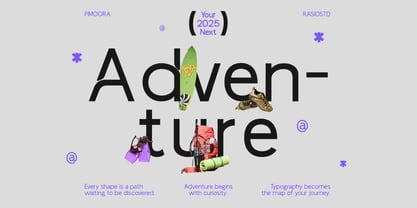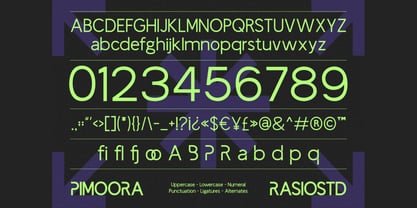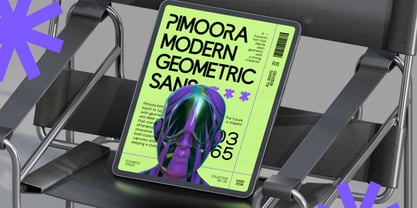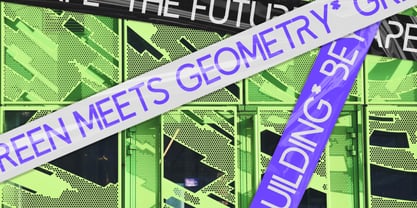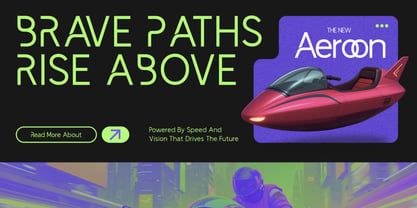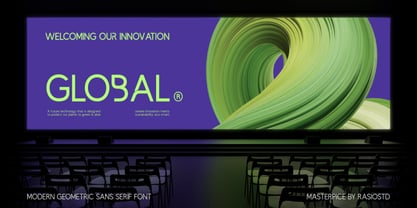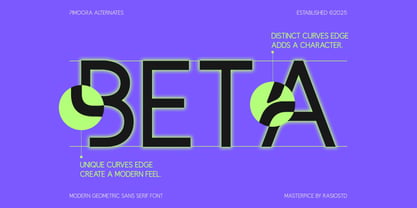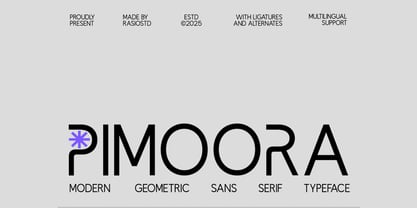
Pimoora
by Rasio Studio
Pimoora is a modern geometric sans serif typeface built with clean lines, consistent curves, and a forward-looking aesthetic. Designed by RASIOSTD, this versatile font includes ligatures, alternates, and multilingual support, making it an ideal choice for both digital and print applications. Its sleek, structured form suits a wide range of uses, from tech startups and branding systems to editorial layouts and UI design. Relevance and Use Cases is perfect for branding design, tech logo, modern website, app interface, poster design, editorial layout, startup identity, corporate use, presentation deck, infographic, social media, minimalist branding, print ad, digital product, UI/UX design, web header, clean design, modern business, creative agency, professional font.